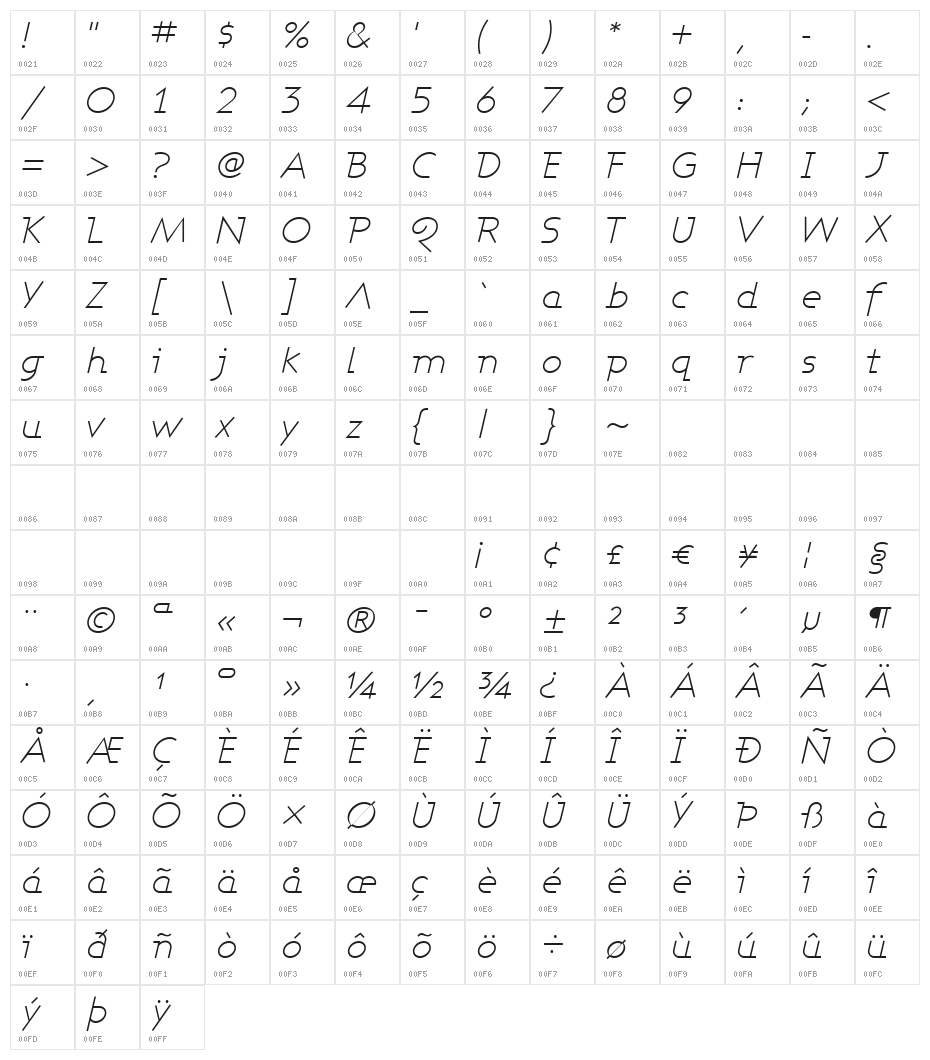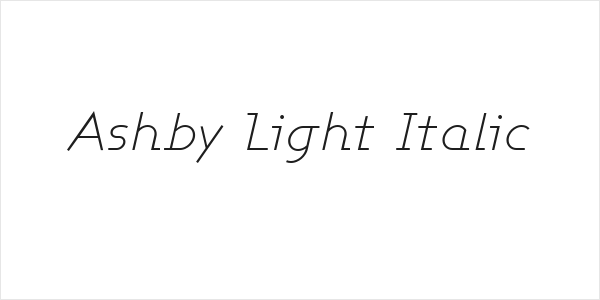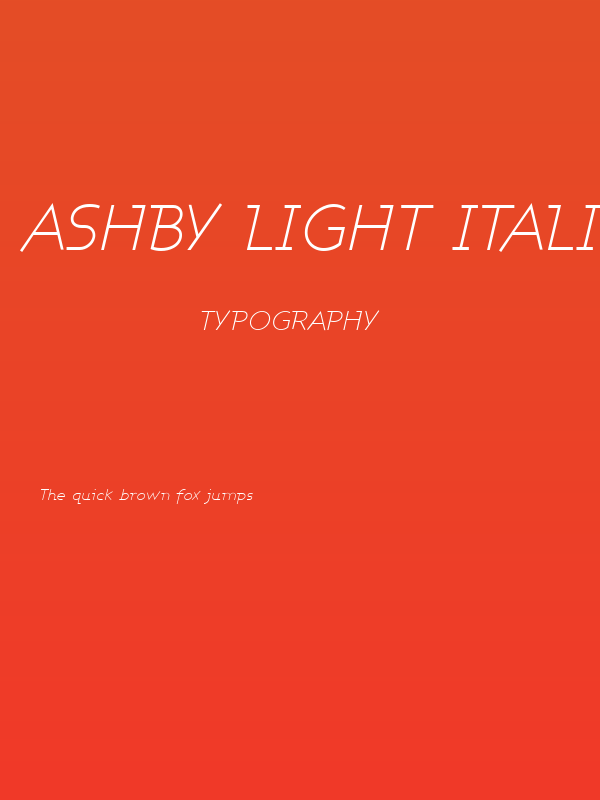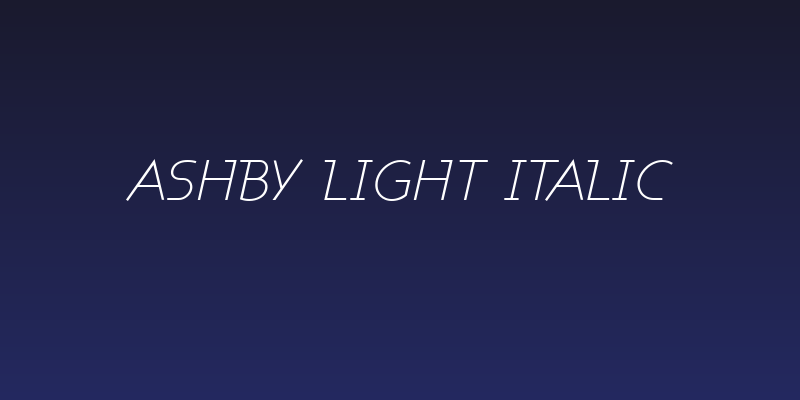
Ashby Light Italic Font
Ashby Light Italic Description
This font features a sleek and elegant design with a light and airy feel. The characters are slightly slanted, giving it an italicized appearance that adds a touch of sophistication. The strokes are thin and consistent, contributing to a clean and modern look. The uppercase letters are tall and narrow, while the lowercase letters maintain a balanced proportion. The numerals are clear and easy to read, and the special characters are well-integrated, maintaining the overall aesthetic. This font's subtle elegance makes it suitable for a variety of design projects.
Proposed ProjectsIdeal for fashion magazines, elegant invitations, branding for luxury products, and modern web design.